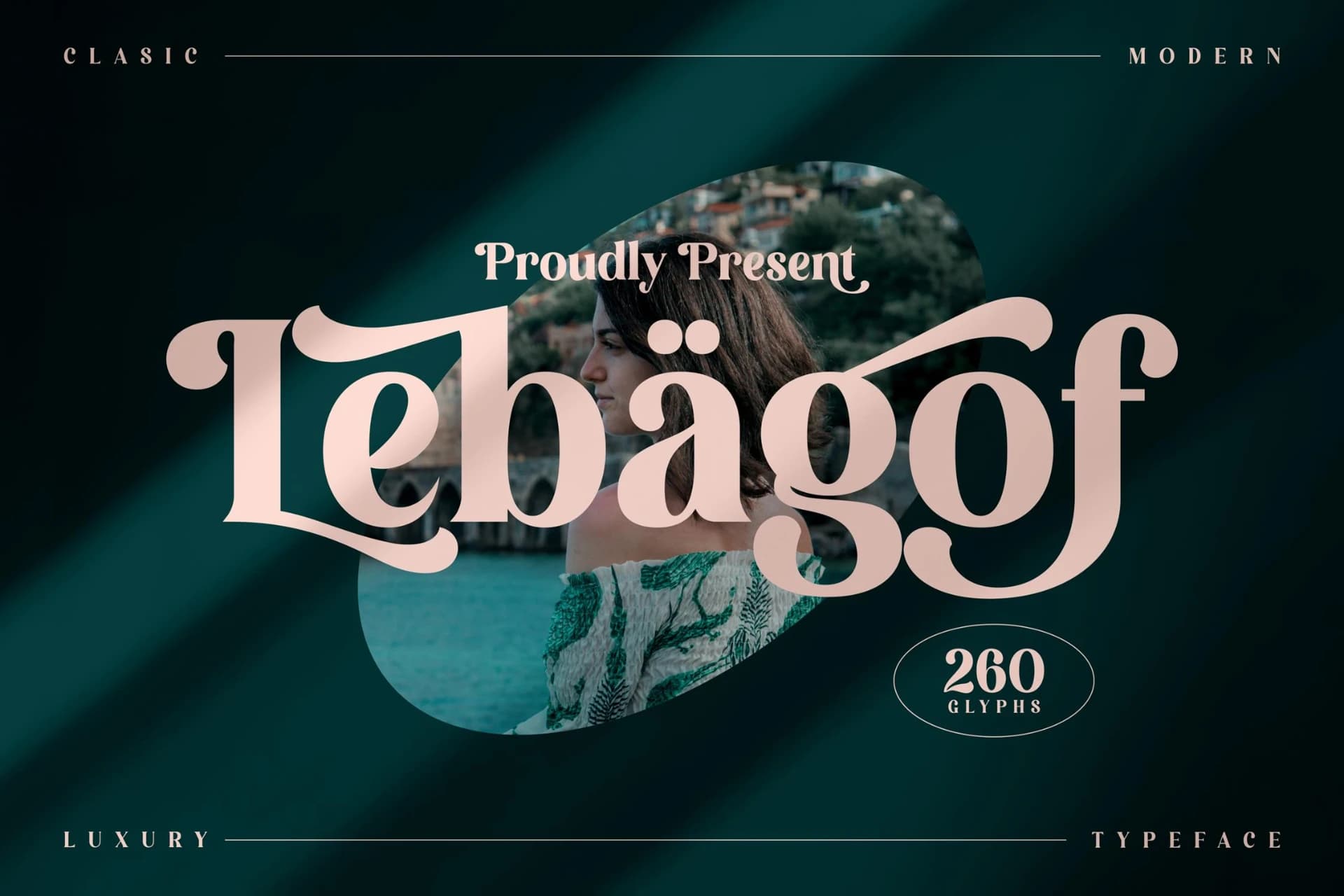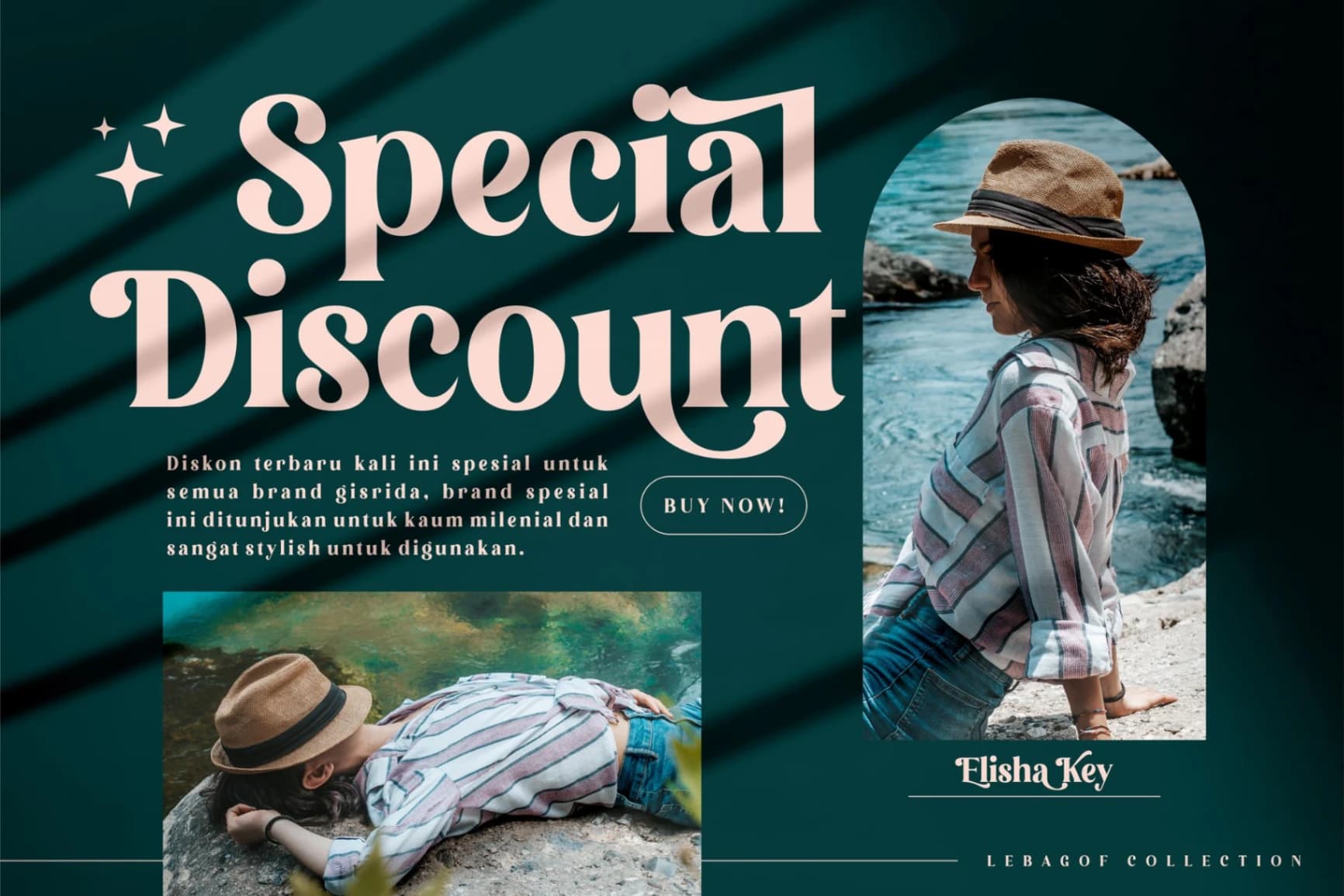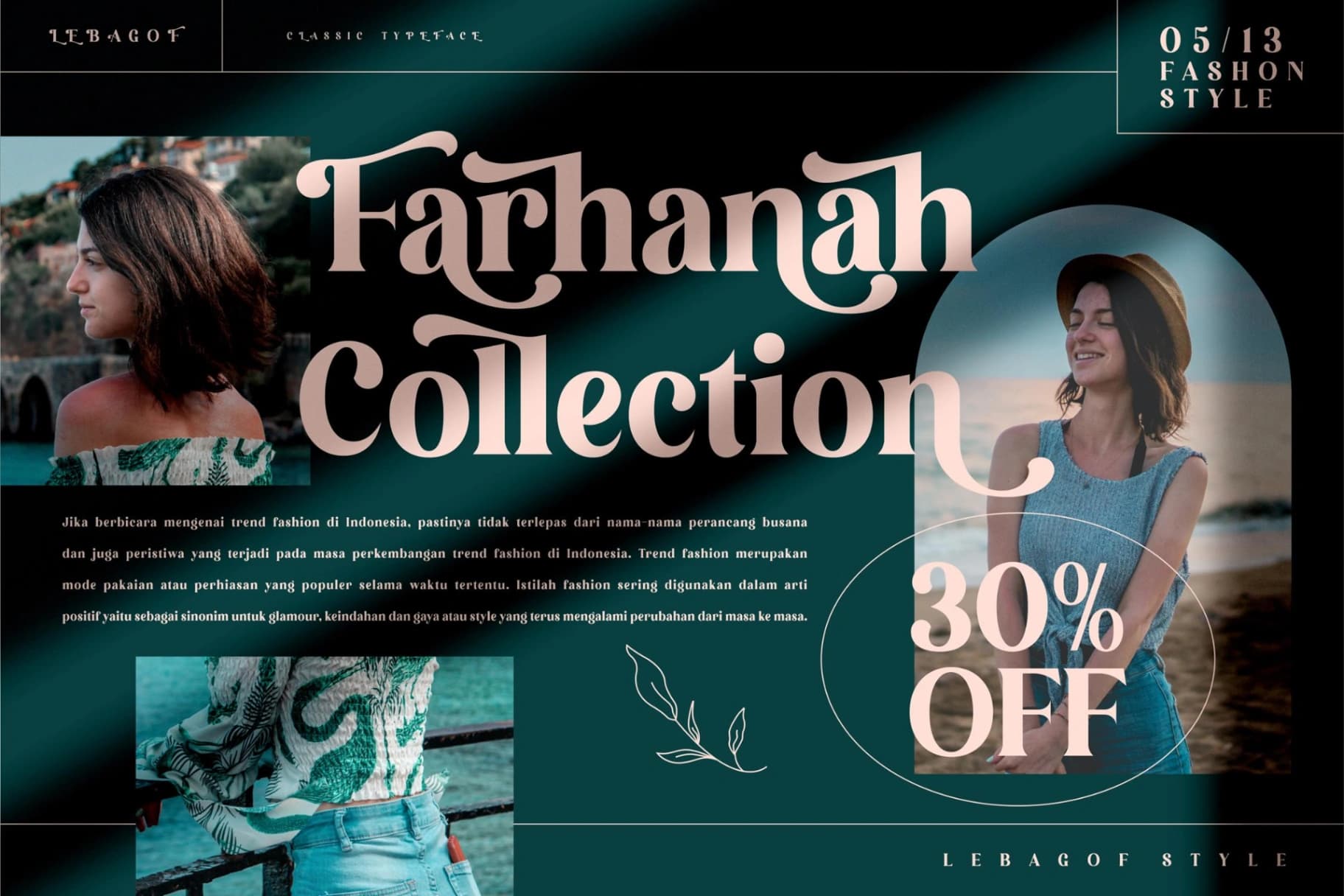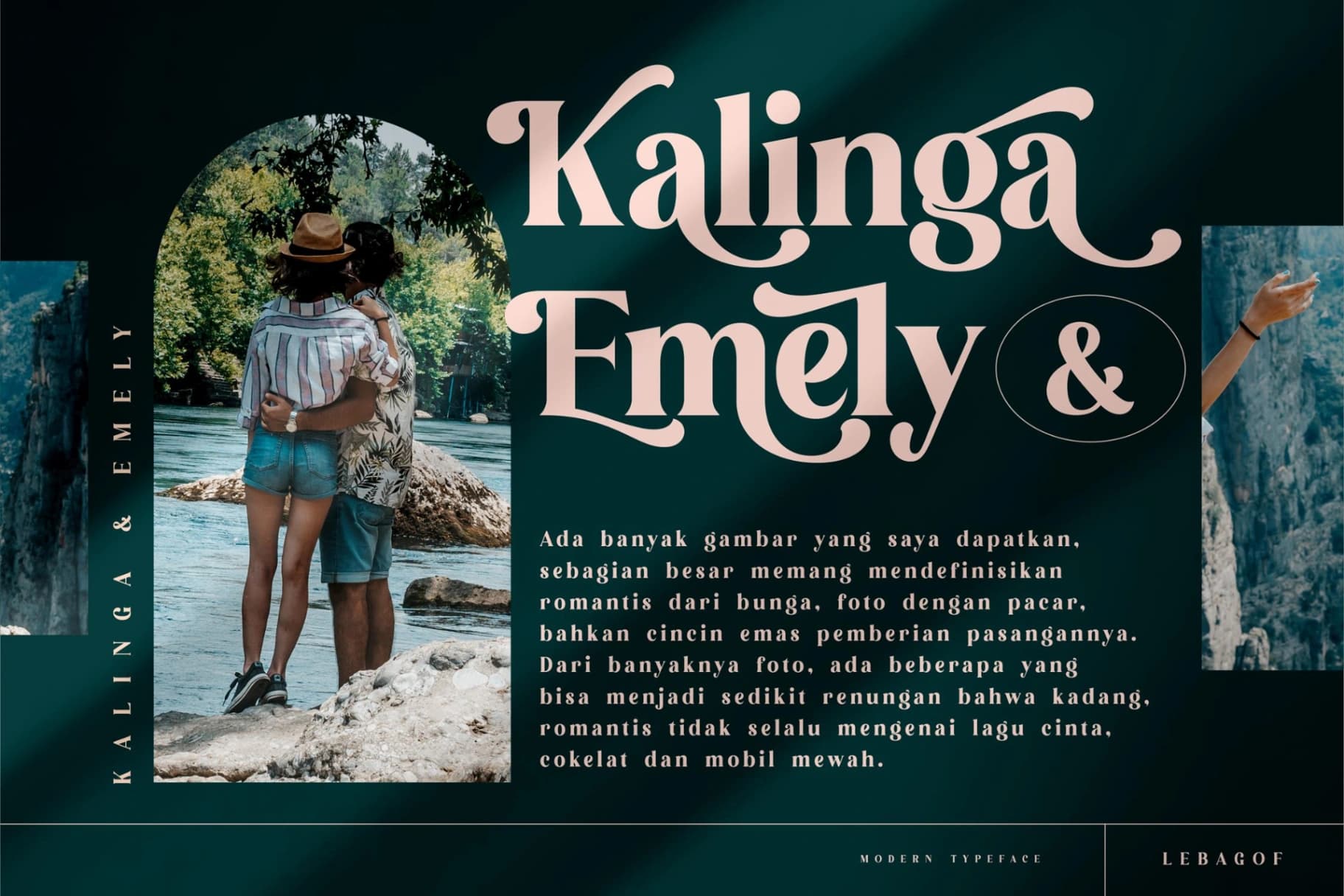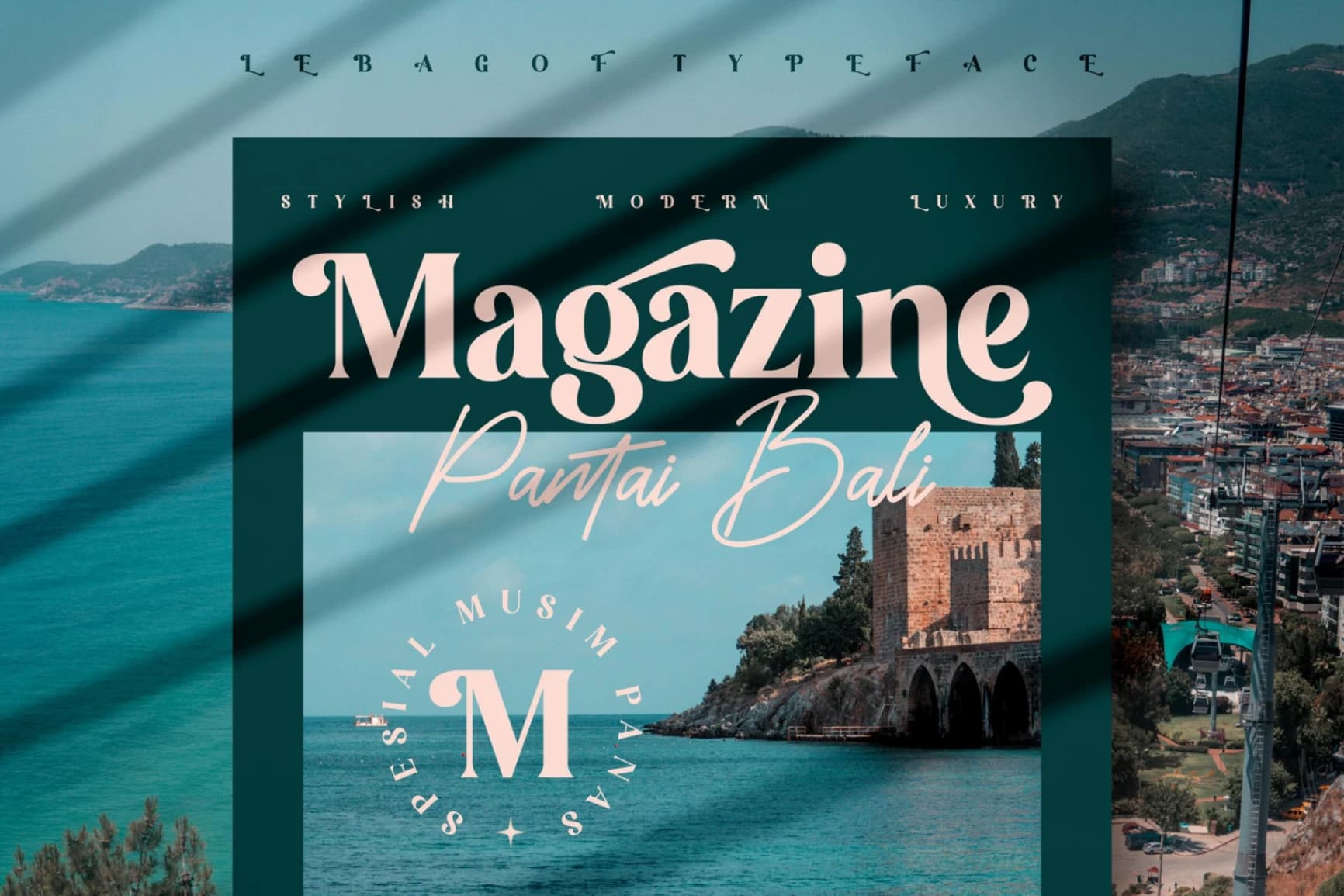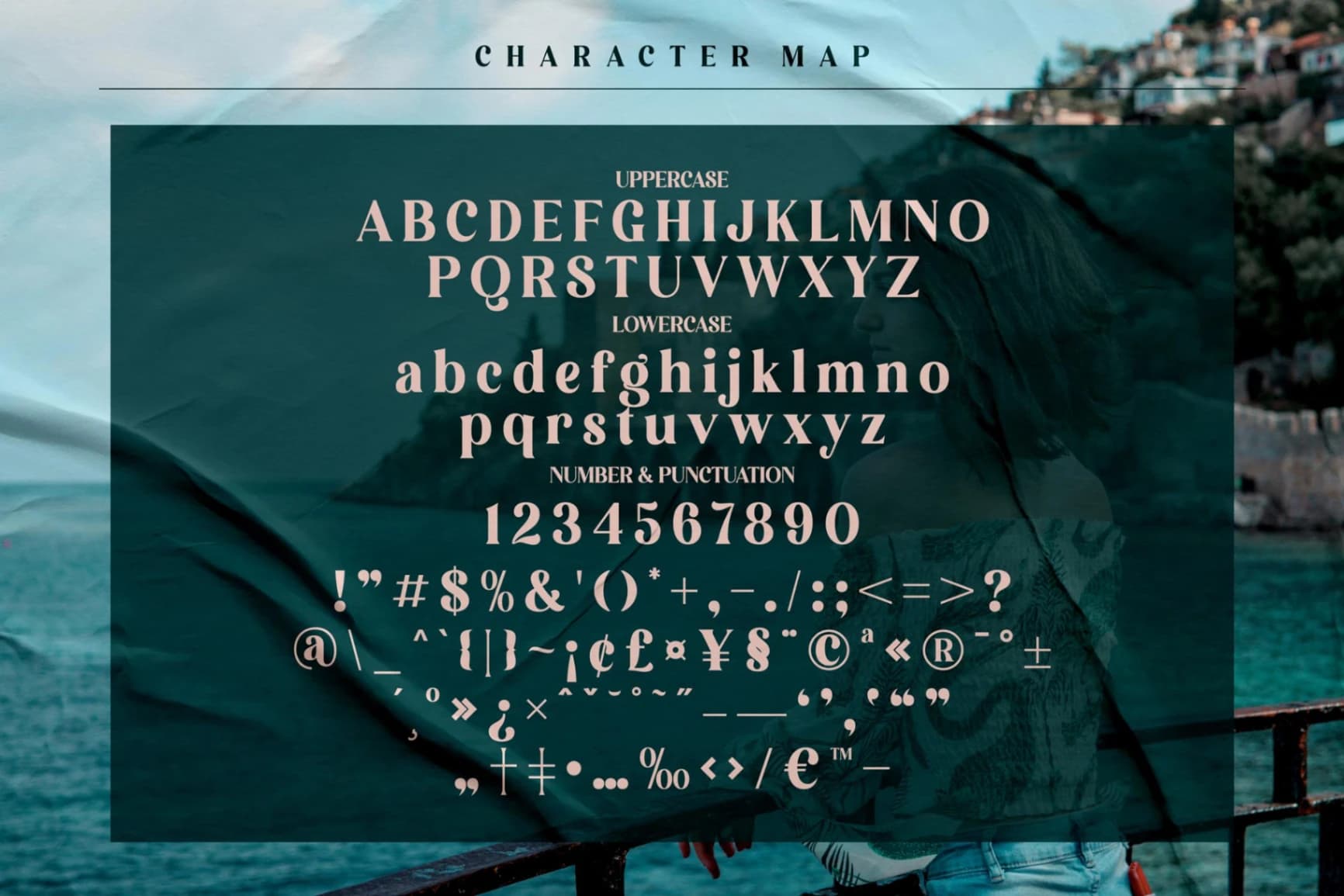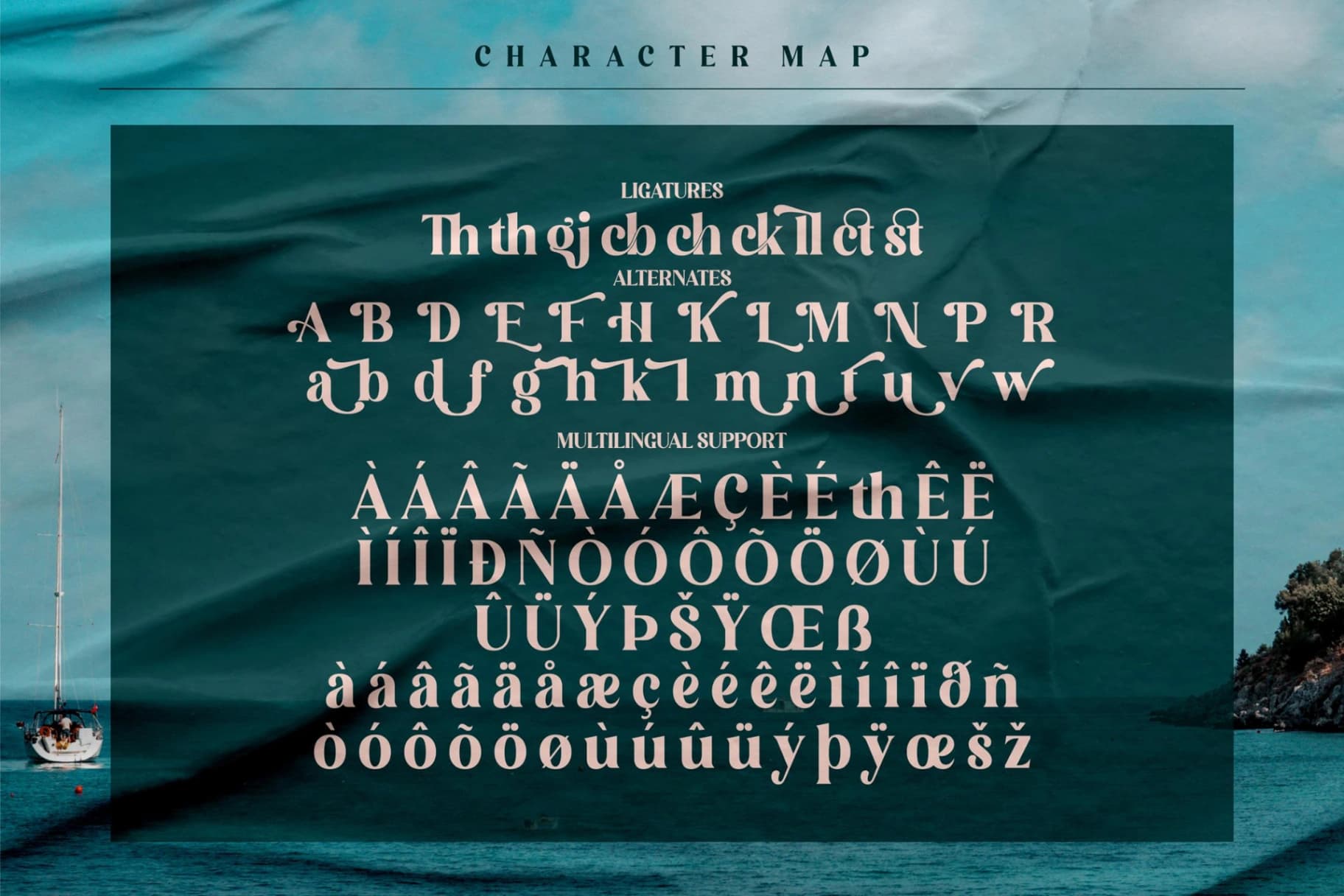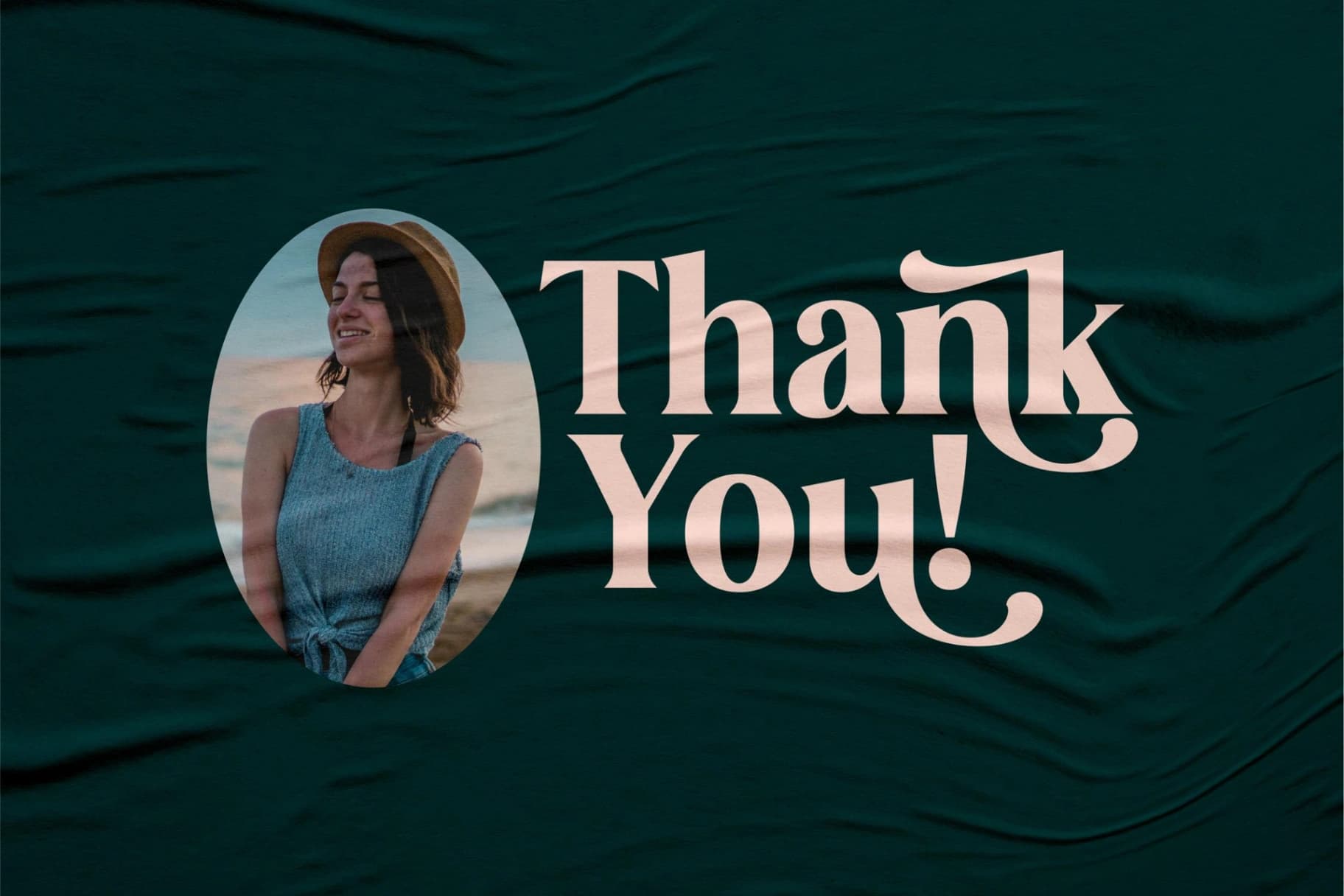
Lebagof - Modern Serif Font
Elevate your design projects with the unparalleled elegance of Lebagof - Modern Serif Font. This exquisite typeface masterfully blends classic sophistication with modern flair, featuring high-contrast strokes and distinctive swashes that command attention. Lebagof - Modern Serif Font delivers a powerful visual statement, infusing every word with bold elegance and refined character, perfect for designers seeking to convey luxury and prestige.
Discover a font that truly captivates and differentiates. Lebagof - Modern Serif Font is meticulously crafted to offer a unique character with its elegant curves and dramatic serifs, ensuring your message stands out. Its versatile appeal makes it an indispensable asset, harmonizing timeless aesthetics with contemporary design to create an instantly memorable presence across diverse mediums.
Expand your creative reach without limitations. With its extensive multilingual support, Lebagof - Modern Serif Font adapts seamlessly across global markets, making it incredibly versatile for international projects. This robust functionality ensures your brand's voice is understood and appreciated worldwide, maintaining its inherent sophistication and design integrity, no matter the language.
Perfectly suited for applications demanding an air of exclusivity and glamour. Lebagof - Modern Serif Font is the ultimate choice for luxury branding, high-end packaging, editorial design, fashion magazines, sophisticated invitations, and impactful logo design. It provides the ideal foundation for crafting an unforgettable statement that resonates with discerning audiences and elevates your creative vision.